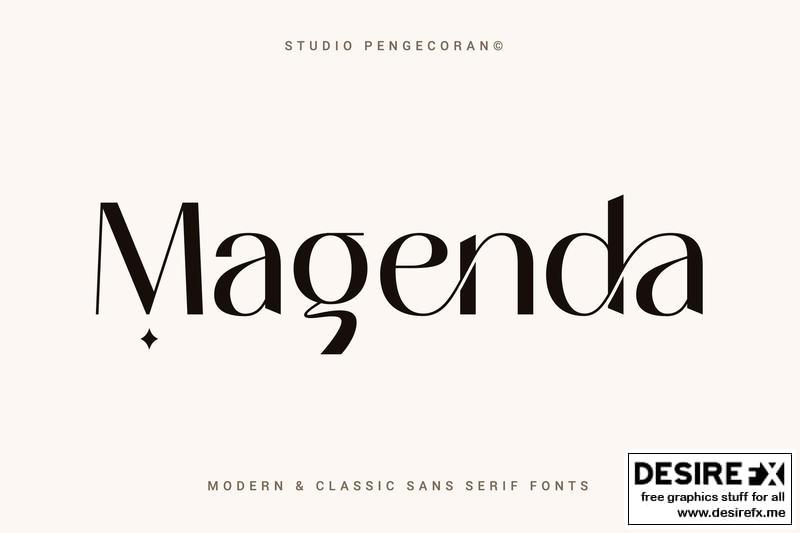
Magenda – Modern & Classic Sans Serif Fonts DZE9CCW
Magenda – Modern Classic Sans Serif Fonts By Studio Pengecoran.
A modern and classic font with a choice of alternative characters and beautiful ligatures. Perfect for design projects such as branding, logos, creative posts, covers and more.